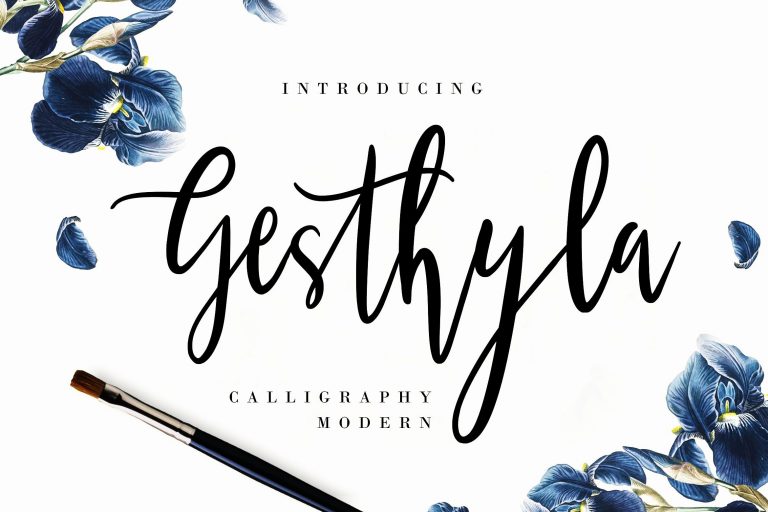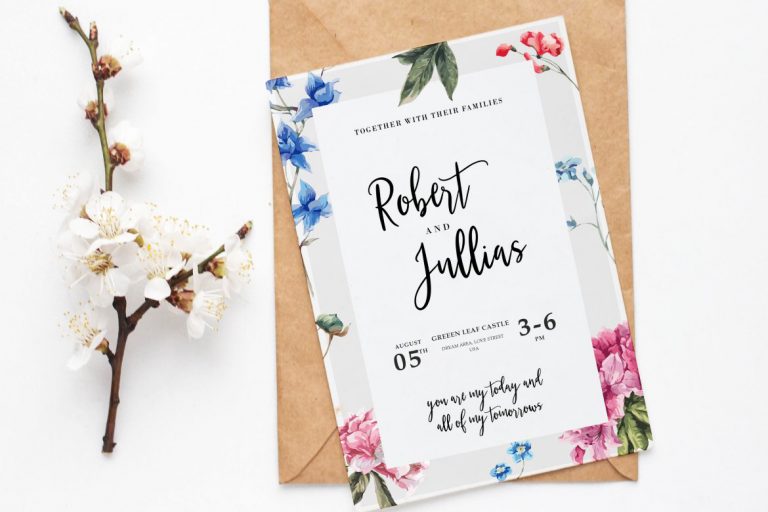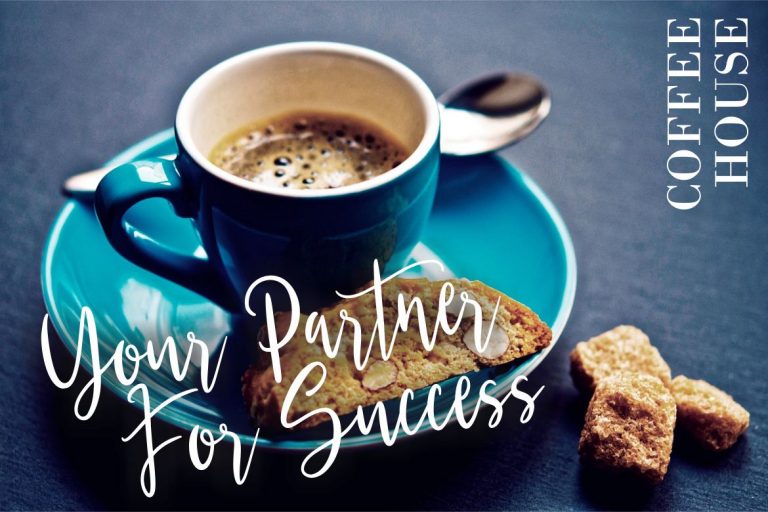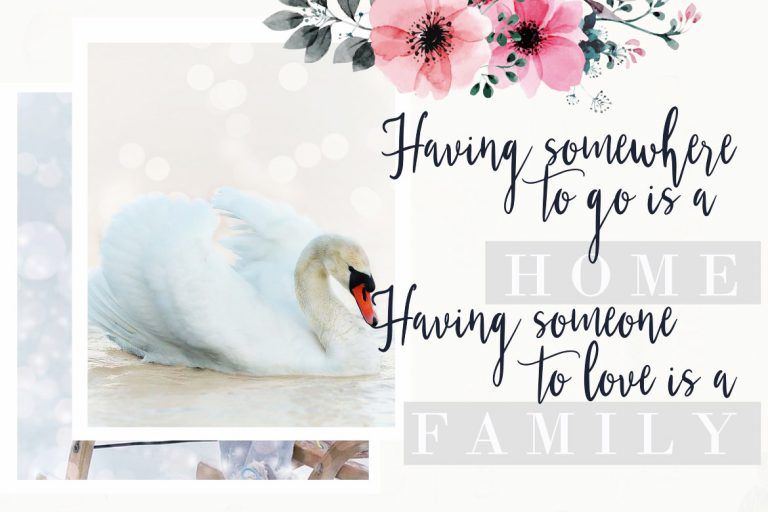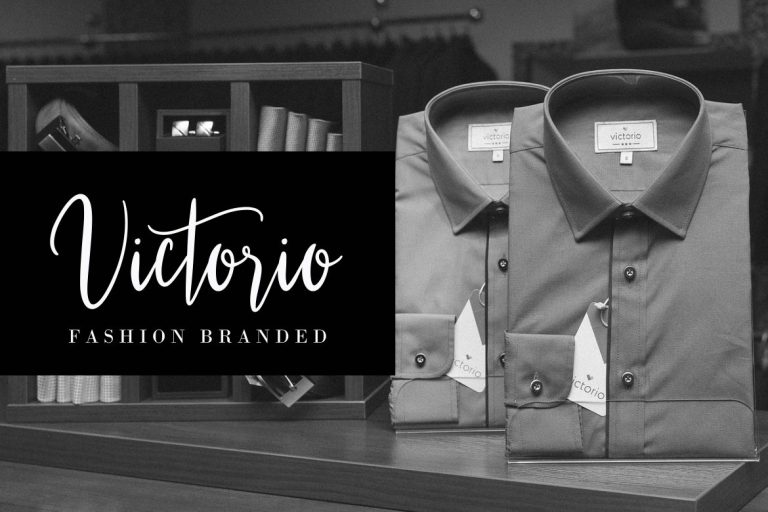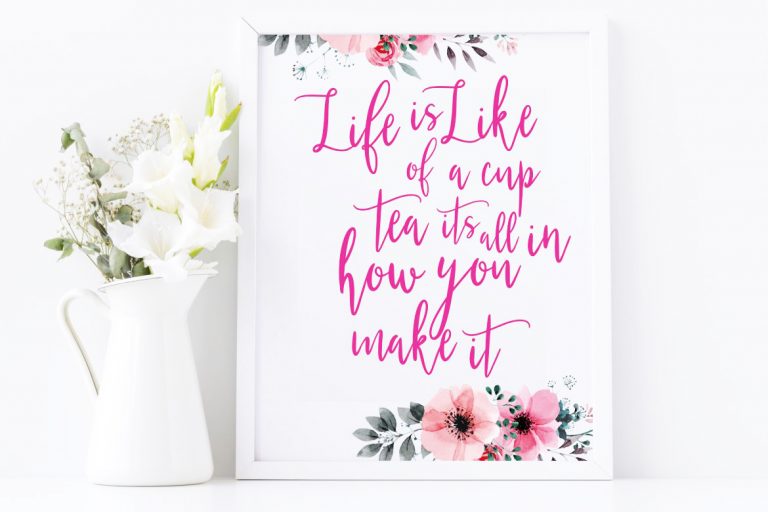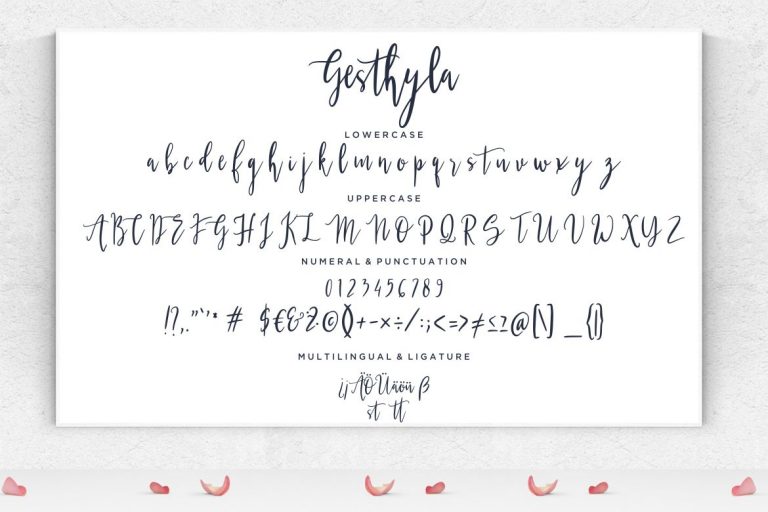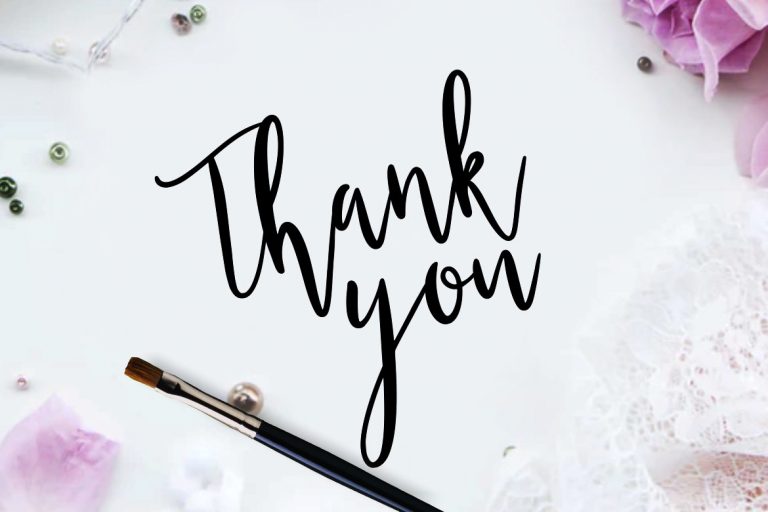
Gesthyla is handwritten calligraphy modern font looks elegant, classy and natural move.
Gesthyla is perfect for branding projects, logo, wedding designs, social media posts, advertisements, product packaging, product designs, label, photography, watermark, invitation, stationery and any projects that need handwriting taste.
- Standard glyphs
- Ligature
- Fonts include multilingual support for; ä ö ü Ä Ö Ü ß ¿ ¡
Gesthyla Calligraphy Modern